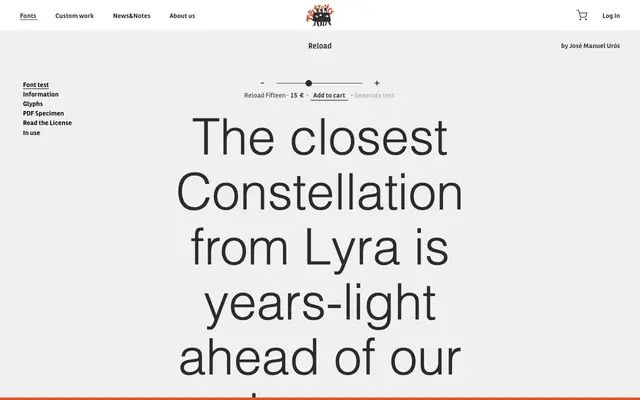
Reload
A single-weight display typeface by José Manuel Urós from Type-ø-tones, available in one style called Fifteen.
Reload is a display typeface by José Manuel Urós, released through the Barcelona-based foundry Type-ø-tones. It is offered in a single style, Fifteen, suggesting a focused design intended for headline or expressive typographic contexts. The page provides limited specimen detail, but the tone of the sample text points toward a typeface with a speculative or lyrical character.
The sparse page content and display-only weight suggest a decorative or expressive display typeface; insufficient detail to assign a more precise subcategory.